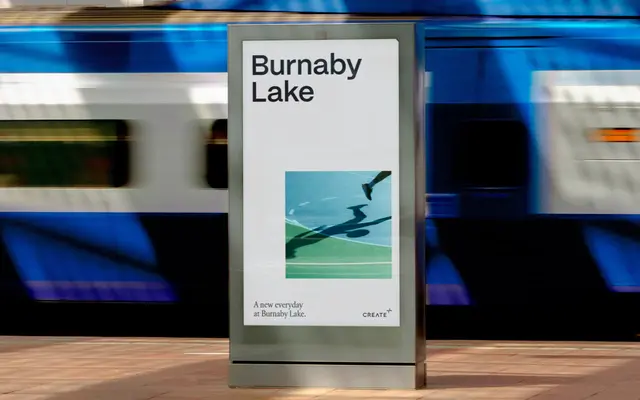
PP Mori
A gothic sans inspired by contemporary Japanese design, with twenty-two styles, deep OpenType features and a quietly distinctive r and g.
PP Mori is a gothic sans serif influenced by contemporary Japanese graphic design, built to carry both editorial and branding workloads. Eleven weights run from Thin to Heavy with matching italics for twenty-two styles, and each font carries 804 glyphs with circled and squared numerals, sub and superscripts, Japanese-flavoured punctuation and a deep set of alternates. Look for the geometric r, the double-storey g and the slightly off G to spot it in the wild.
Gothic sans serif inspired by contemporary Japanese design; eleven weights upright and italic for twenty-two styles, each with 804 glyphs and OpenType features.